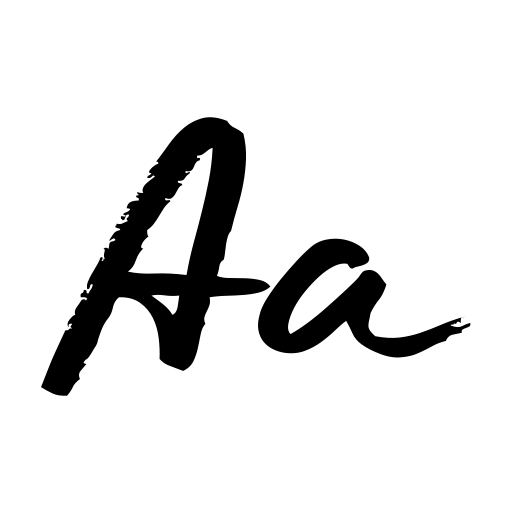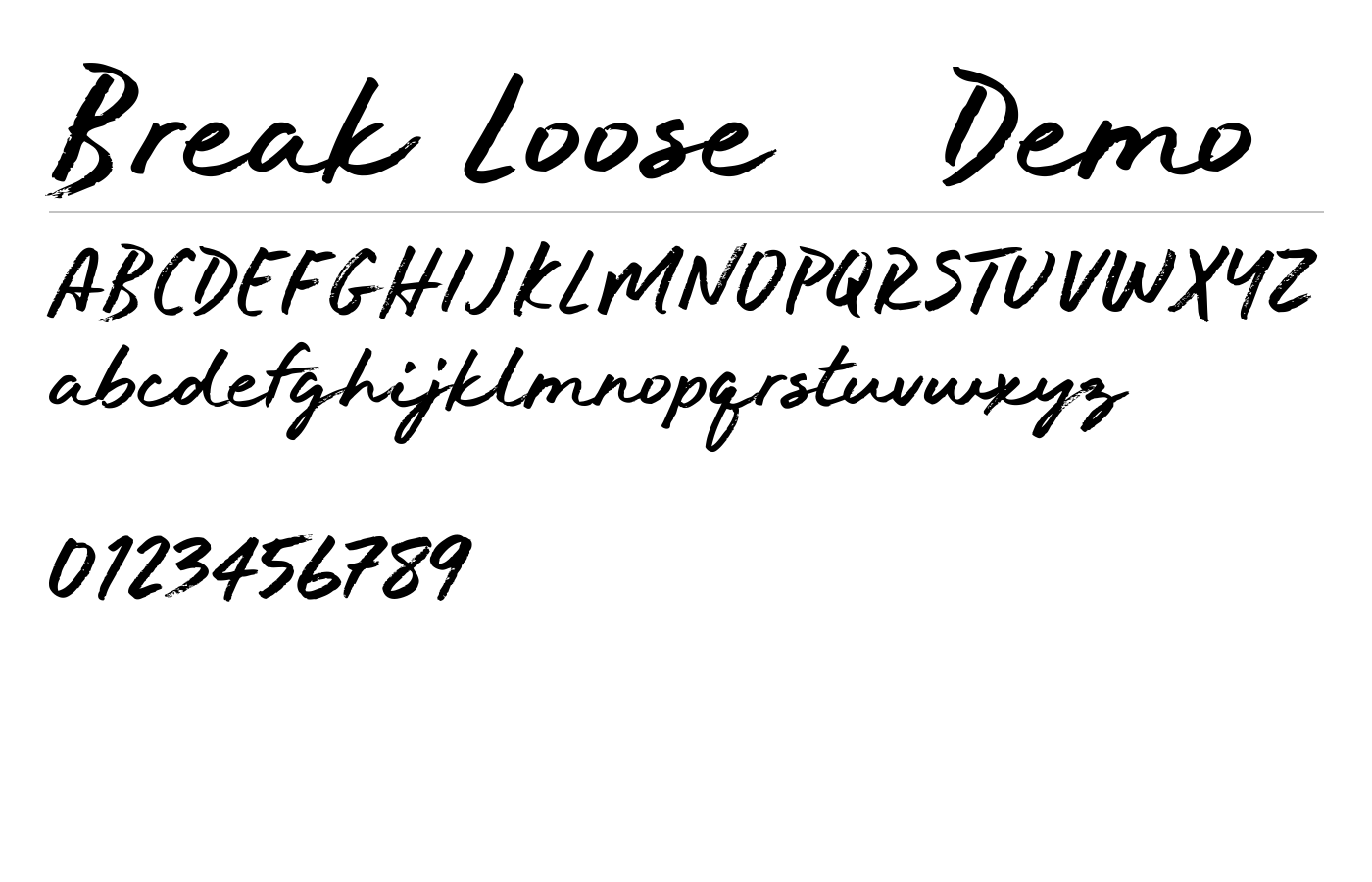
Break Loose - Demo is a dynamic brush script font with a lively, handcrafted style that captures the energy of expressive handwriting. Its textured strokes and slightly uneven lines create a raw, artistic feel, making it ideal for creative branding, casual headlines, and packaging that seeks a personal, energetic touch. This font works especially well where a bold, informal, and authentic vibe is desired, adding warmth and personality to any design.
Break Loose - Demo Font
About Break Loose - Demo Font
| Font family | Break Loose - Demo Font |
| Designer | BLKBK |